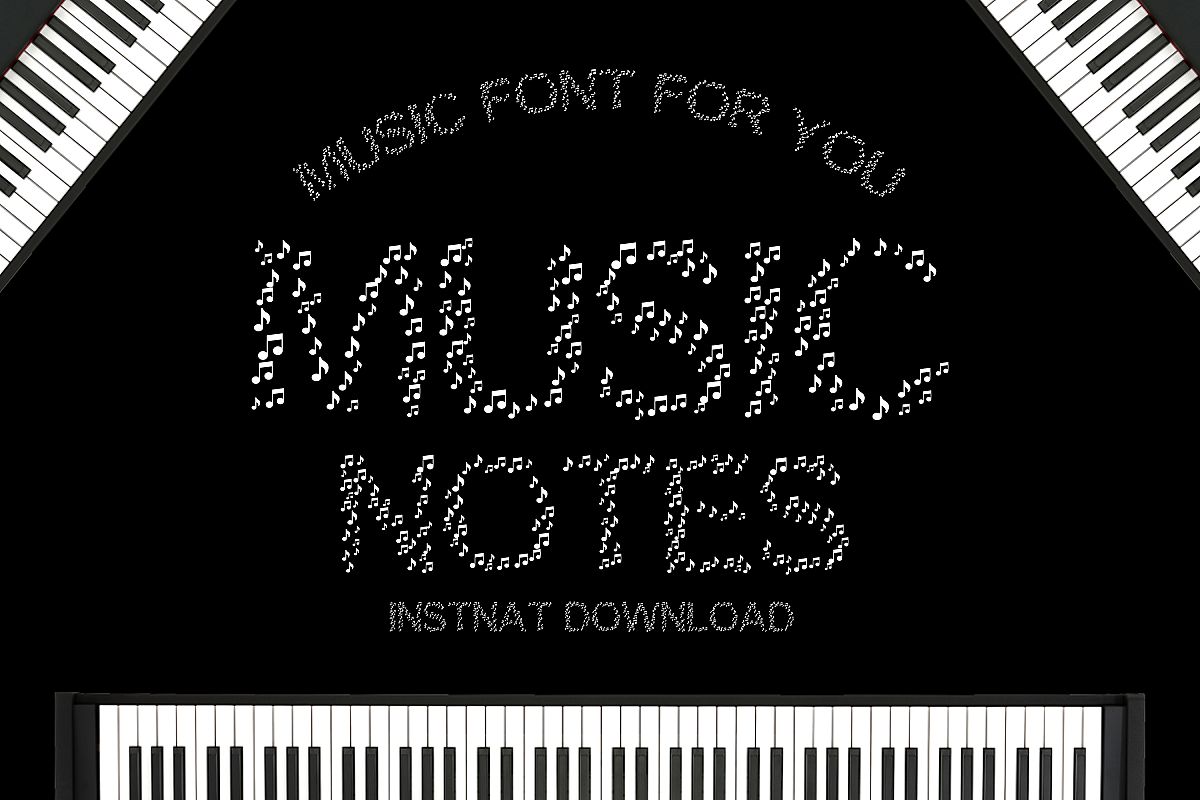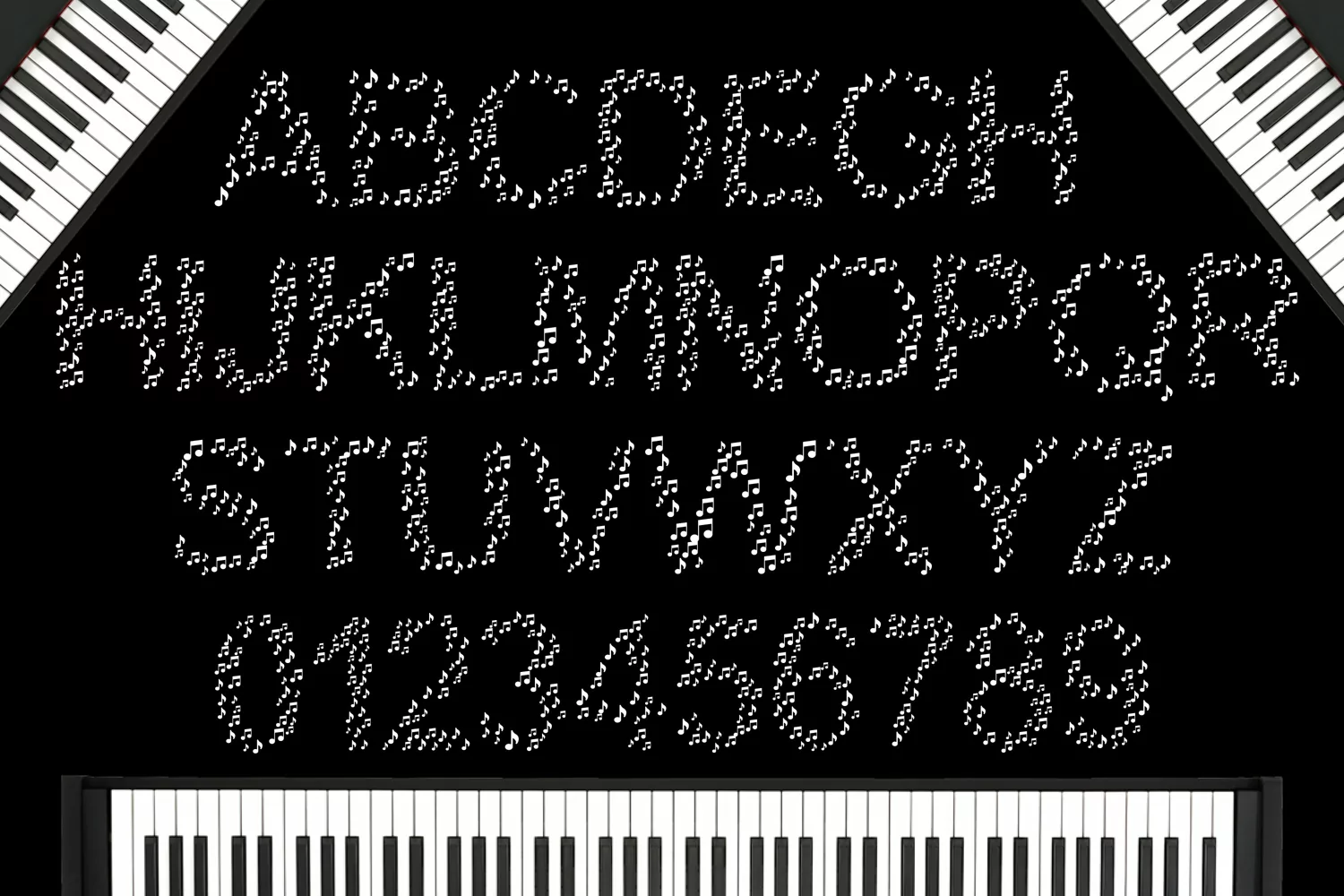
Music Notes - A Cute Educational Font
Presenting Cute font for you. This Special Music Notes can be used in tons of projects specially in child and new born projects. You can use it for craft purpose and this will looks great on shirts, printing material and other stuff.
2- UPPER Case only Letters A to Z and 0-9 Numbers
3- Super Cute and Creative